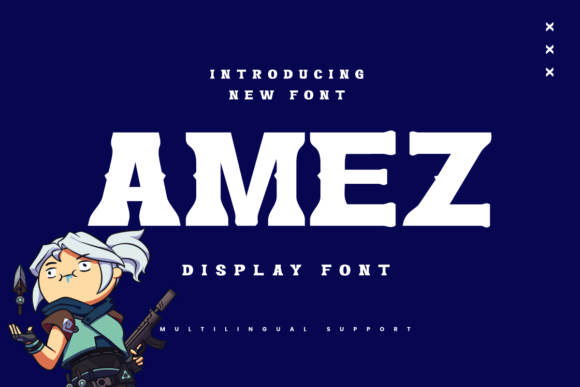
In the realm of digital expression, where words dance across screens and pixels ignite emotions, there exists a font that transcends the ordinary, captivating hearts and commanding attention—introducing Amez Font, the ultimate display font for your creative endeavors.
Amez Font is not merely a collection of letters and symbols; it is an artistic masterpiece that breathes life into your digital creations. Its bold and distinctive design seizes the reader's attention, leaving an indelible mark on their minds. With its striking presence, Amez Font elevates your words beyond mere text, transforming them into visual spectacles that dance before the eyes.
But Amez Font is more than just aesthetically pleasing; it is a versatile chameleon that adapts seamlessly to your unique style and personality. Its wide array of alternate character possibilities and entertaining letter combinations empowers you to customize your font, creating a truly personalized expression of your creativity. Whether you seek a playful and whimsical touch or a sleek and sophisticated aesthetic, Amez Font effortlessly conforms to your vision.
Amez Font is a global citizen, embracing multilingual projects with open arms. It supports a diverse range of languages, ensuring that your message resonates with audiences across borders and cultures. Its unwavering quality and reliability guarantee a clean and crisp presentation across various media and resolutions, ensuring that your creations shine brightly on any platform.
With Amez Font as your creative companion, each headline becomes a testament to strength and visual allure. Unleash your imagination and explore endless possibilities, crafting designs that capture hearts and leave a lasting impression. Download Amez Font today and embark on a journey of limitless creativity!